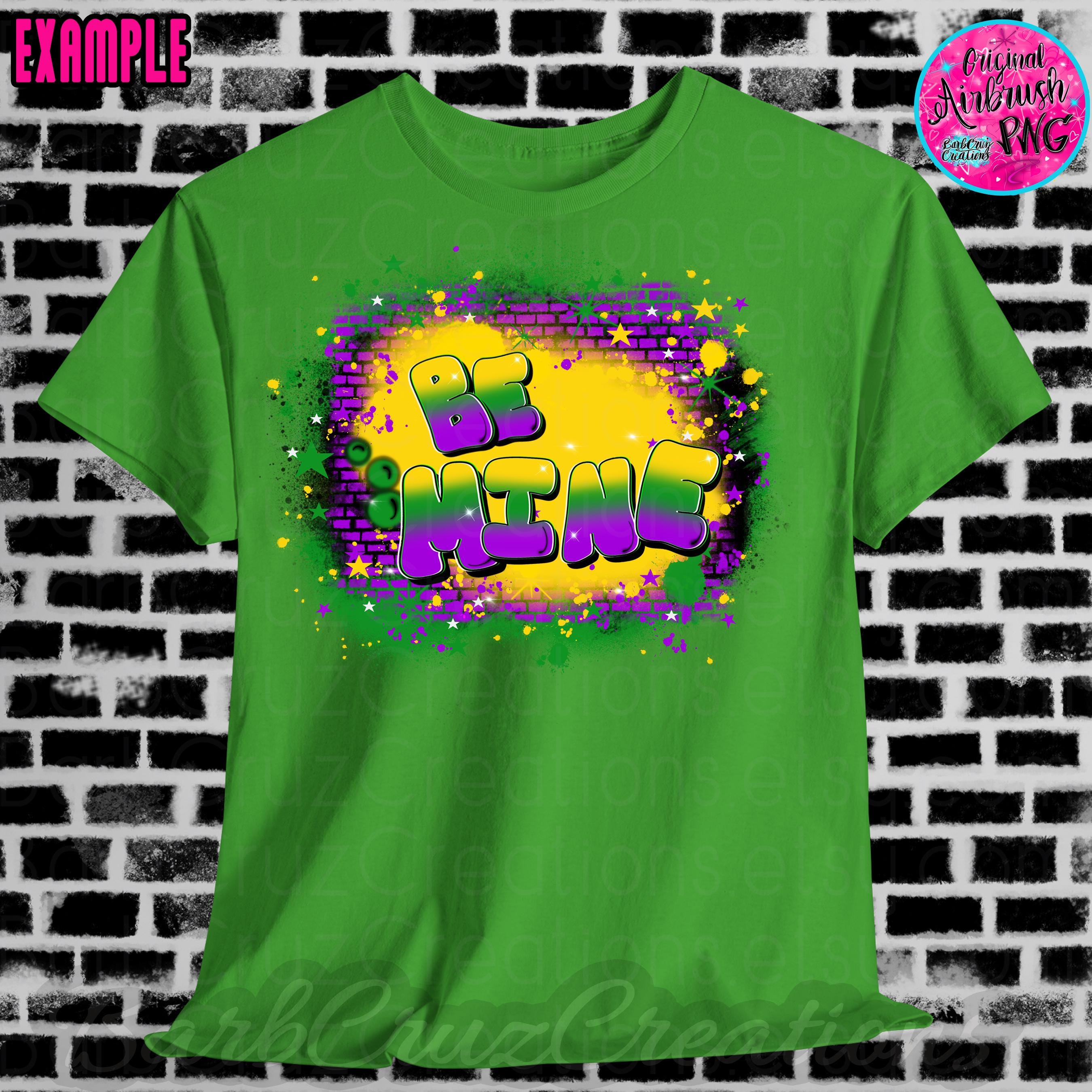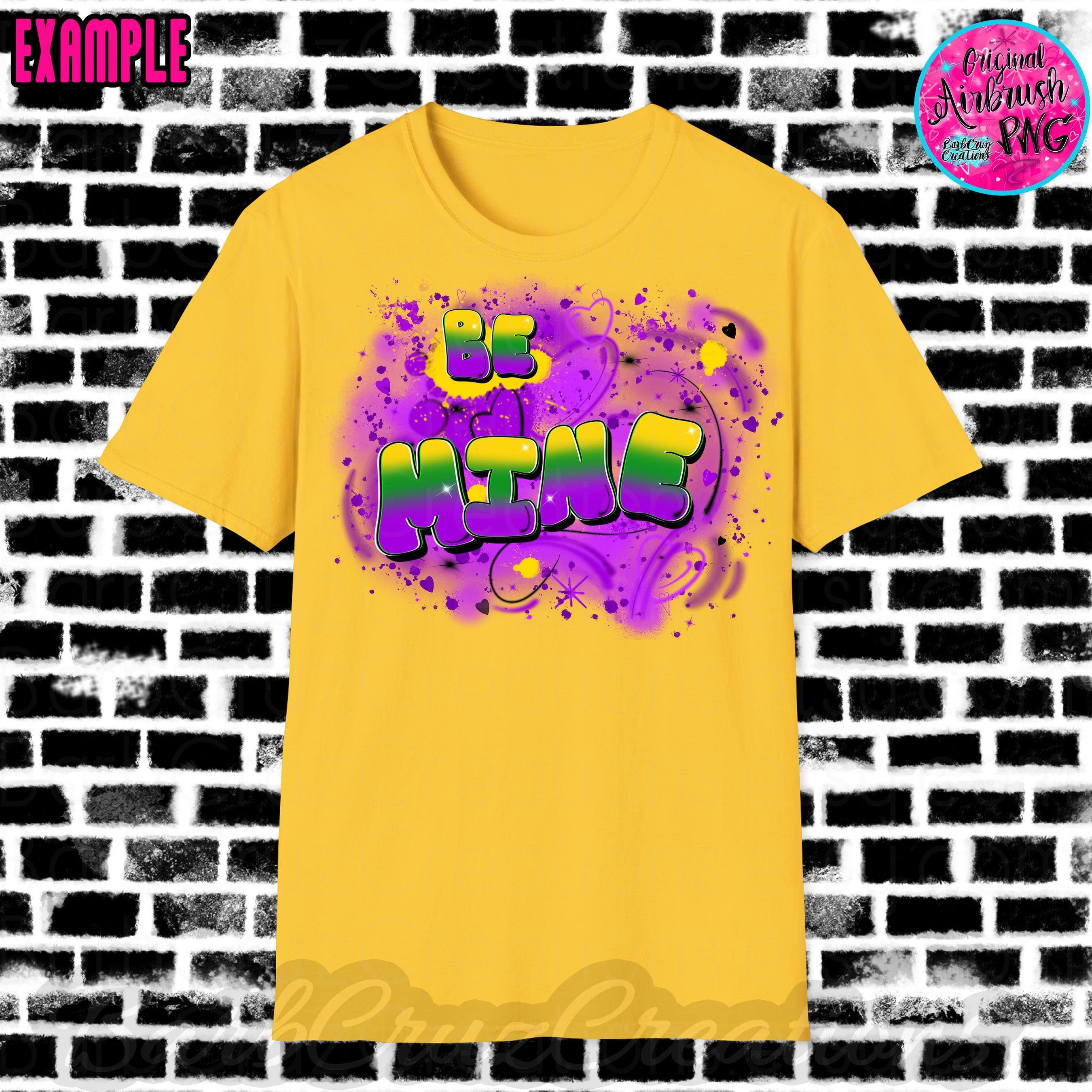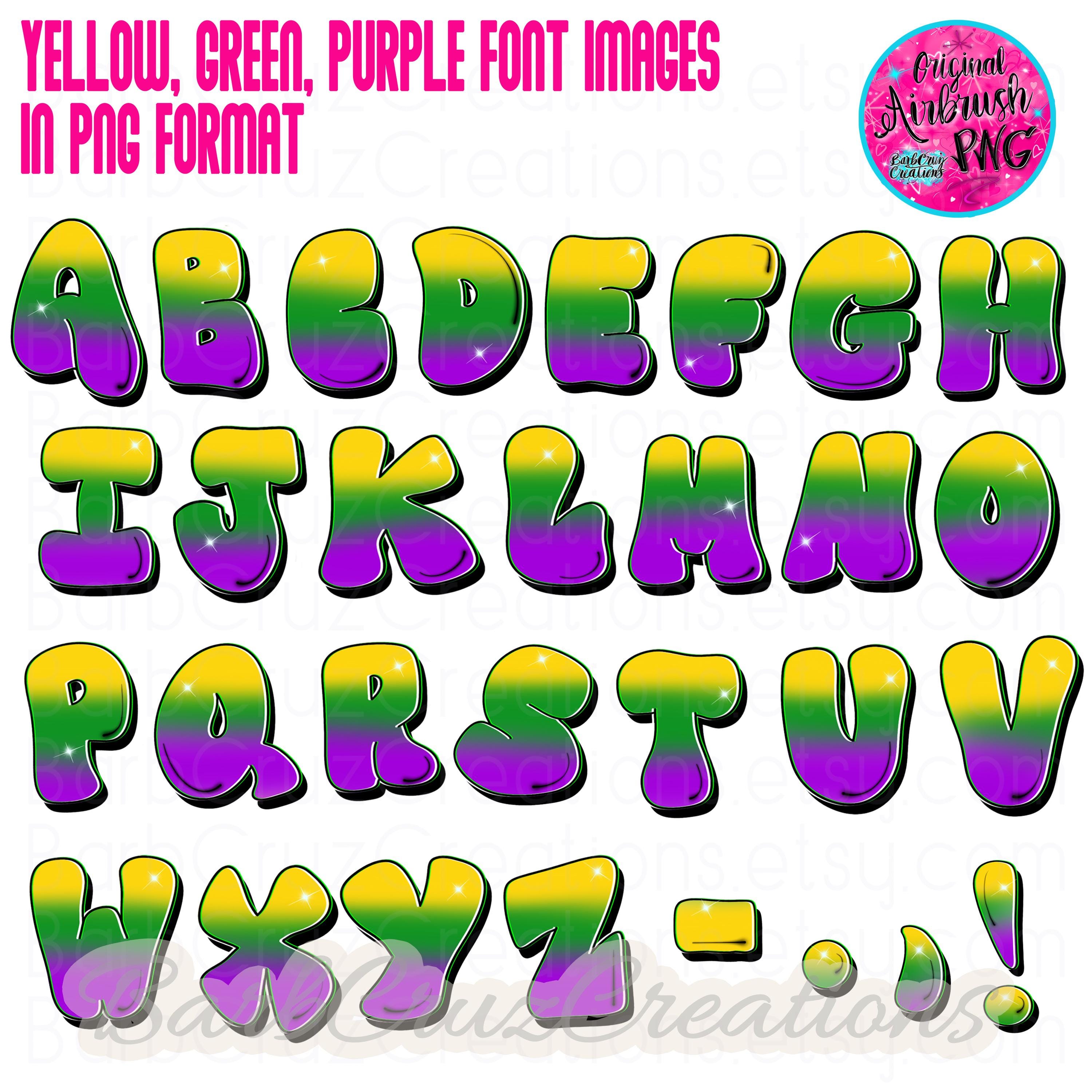
New Orleans Purple Yellow Airbrush Bubble Font Images PNG Digital Download Bundle, Graffiti Letters, Bubble Alphabet Font image, Sublimation
Airbrush Purple, Green, &Yellow Alphabet Bubble Letters as Individual PNG Images on a zip file - Upper Case images included
Add to a background use for airbrush monogram, a personal message, name, image to make a custom design in your design program.